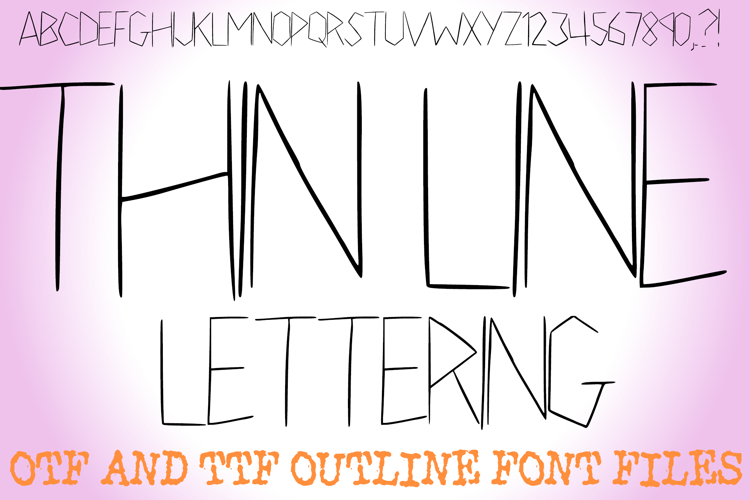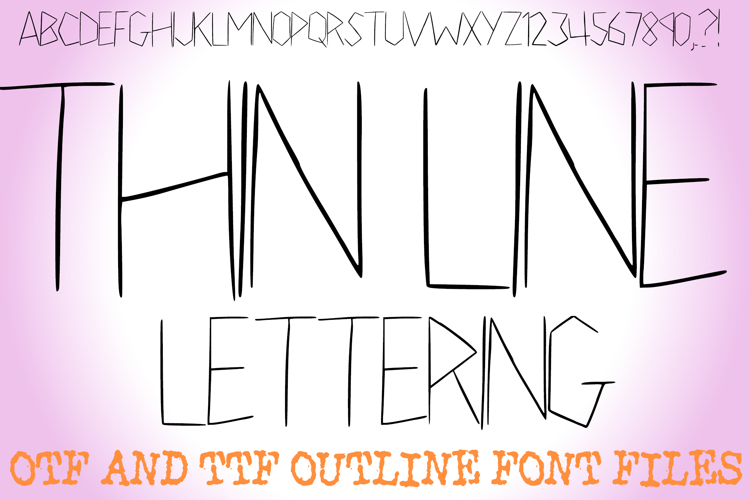
Achieve a sophisticated, minimalist look with the Thin Line Font! This hand-drawn display alphabet is defined by its ultra-fine, needle-thin strokes and sharp, angular silhouettes. It is the perfect choice for high-end branding, modern architectural titles, delicate wedding stationery, and sleek social media layouts.
The "wireframe" aesthetic of each character provides a clean and airy feel, making your text appear modern and lightweight. Whether you are designing for a contemporary tech brand or creating elegant headings for a digital planner, the Thin Line Font delivers a refined, artistic touch that stands out through its simplicity.
Why Your Designs Will Look Sharp:
Ultra-Fine Mono-line Detail: Every character features uniform, thin strokes for a consistent and minimalist appearance.
Angular Geometric Shapes: Features distinct, diamond-inspired geometry in characters like "O," "Q," and "8."
Minimalist Aesthetic: The clean, non-rounded corners offer a modern architectural vibe.